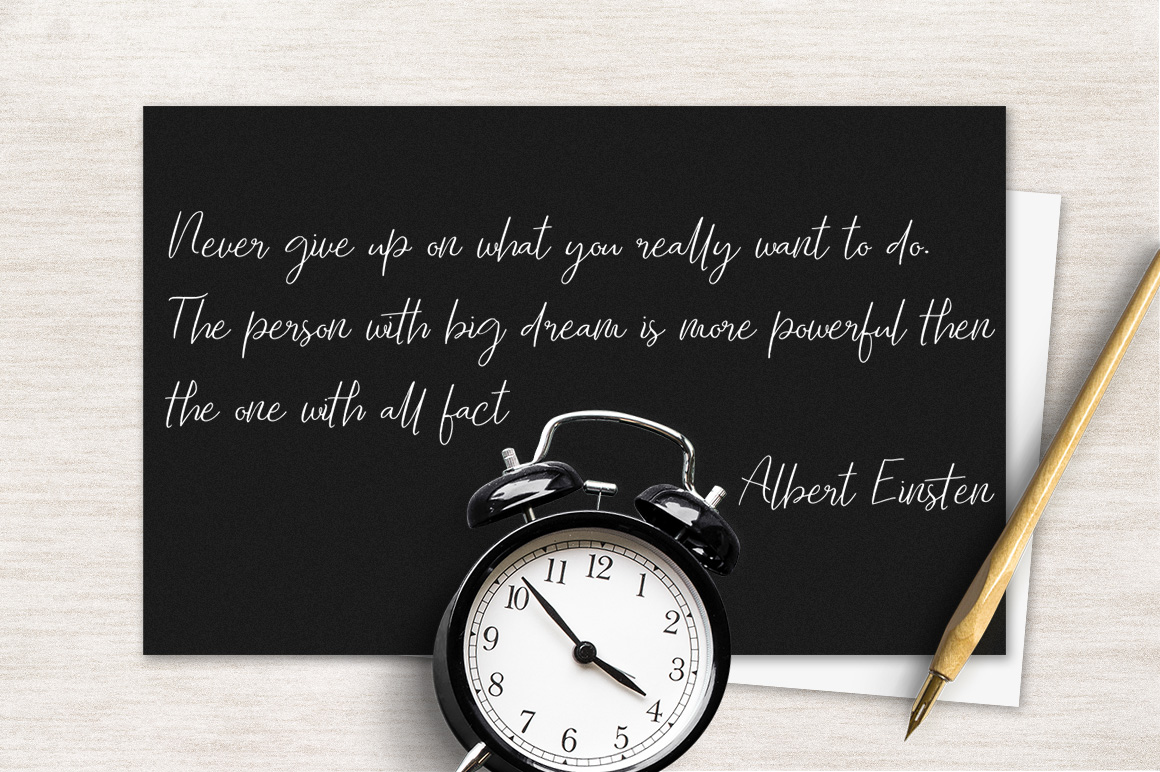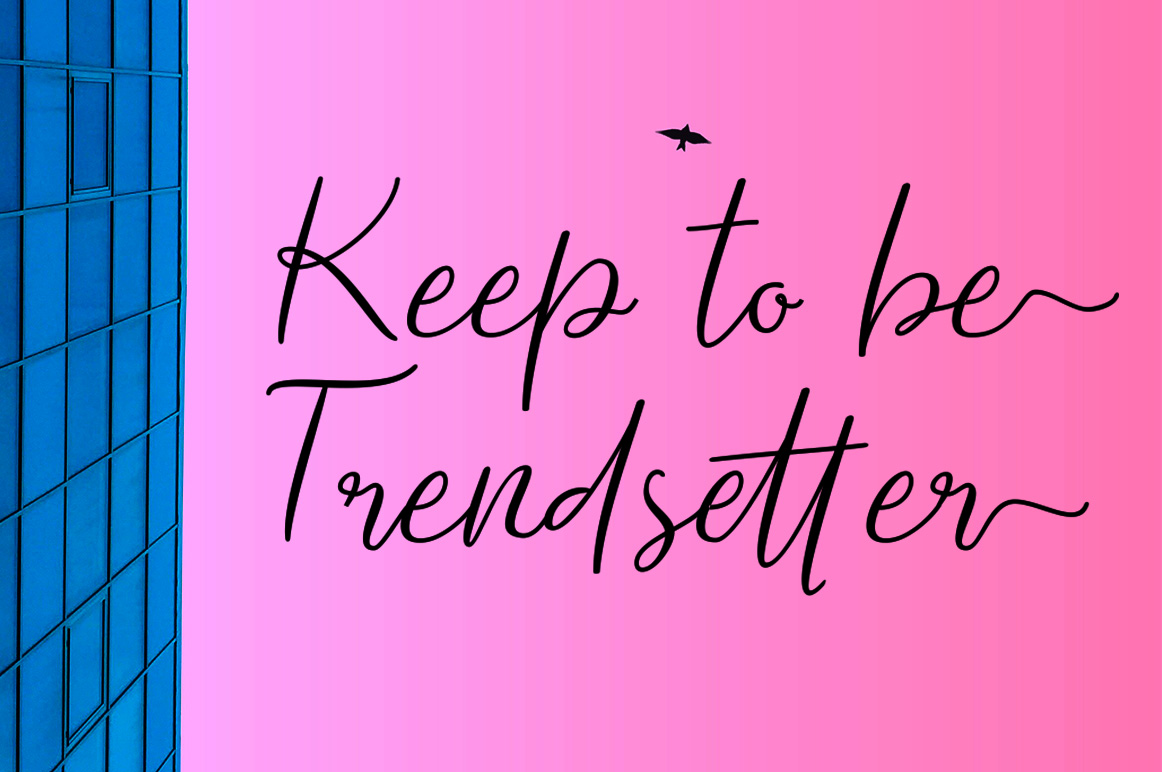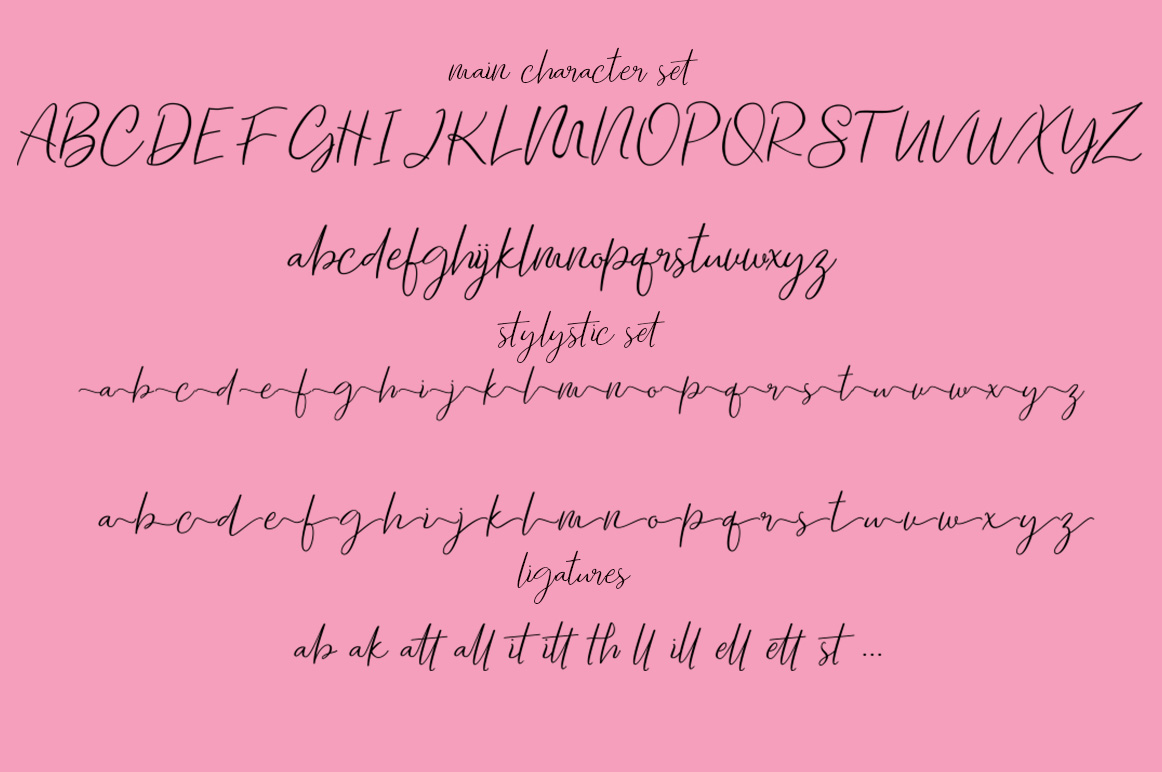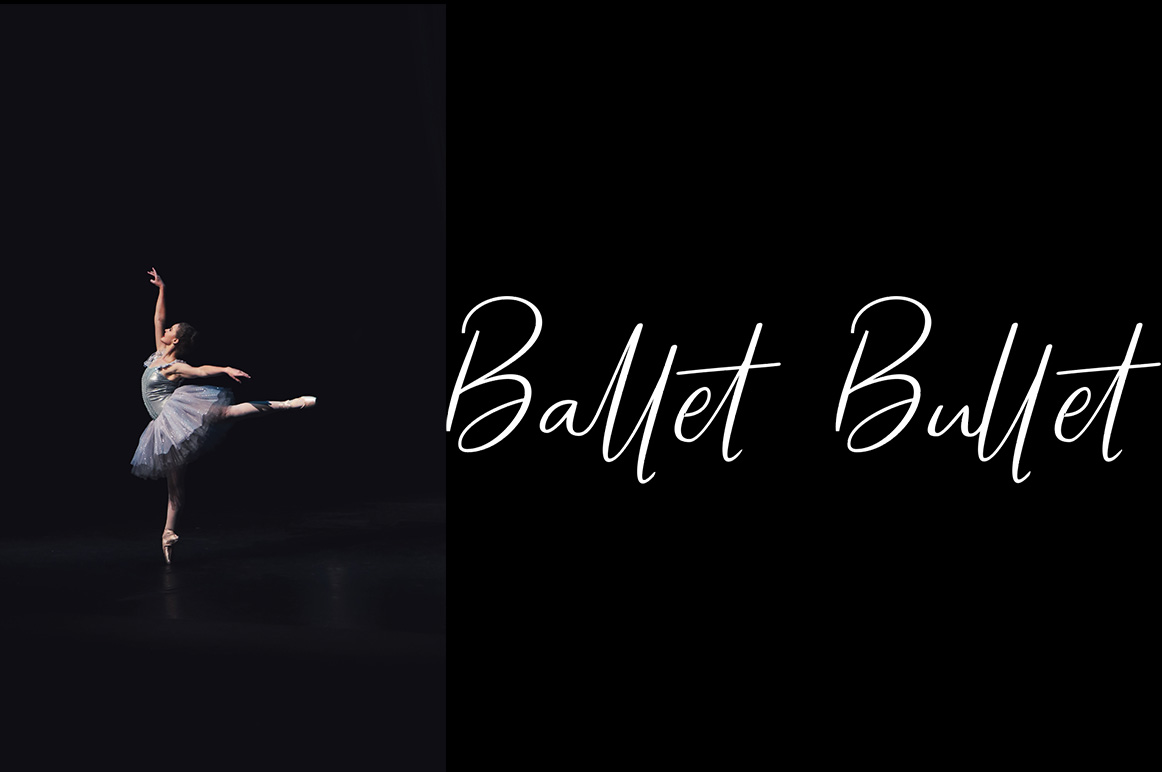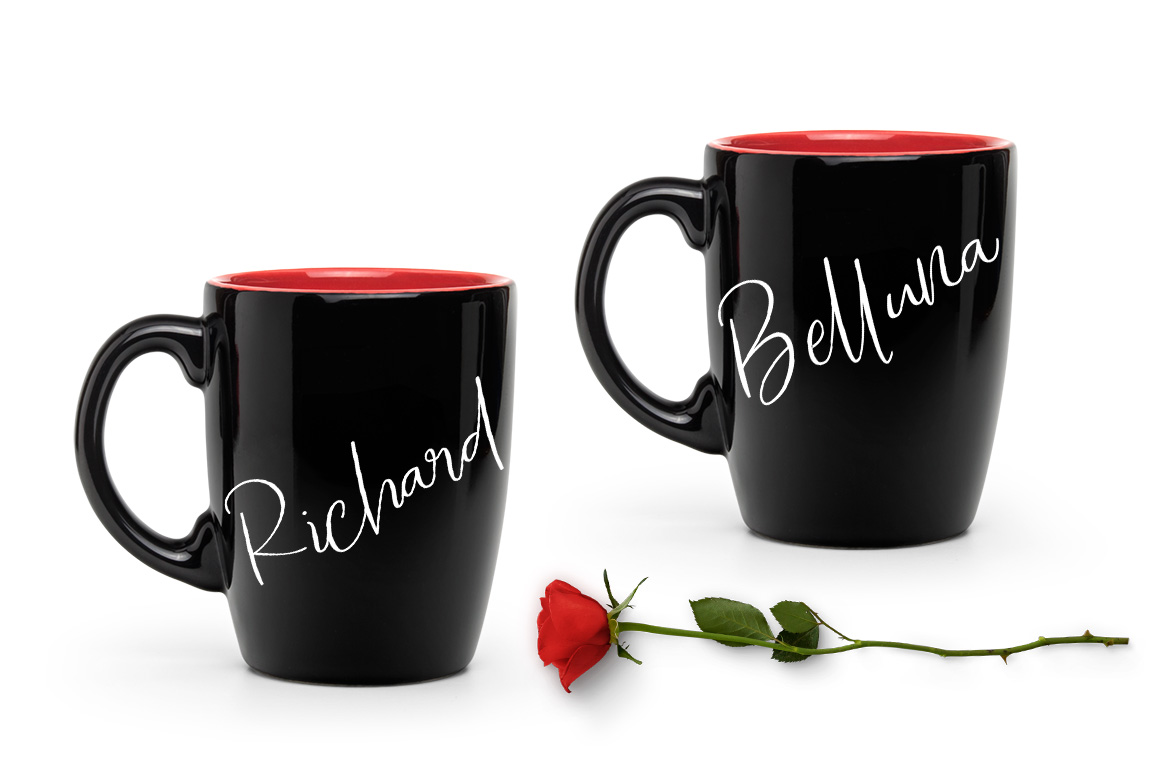
Tallented Font
About Tallented Font
Tallented is a cute and elegant font – contemporary and fashionable, this font is perfect for a large range of projects that ask for a stylistic and romantic feel.